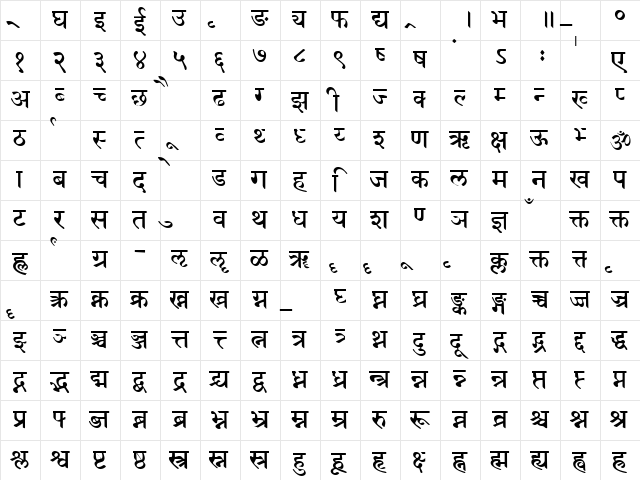
Sanskrit New Normal
Design Context for Sanskrit New Typeface
Sanskrit New takes a measured approach to typography — its balanced proportions and neutral character make it a reliable workhorse for both digital and print work.